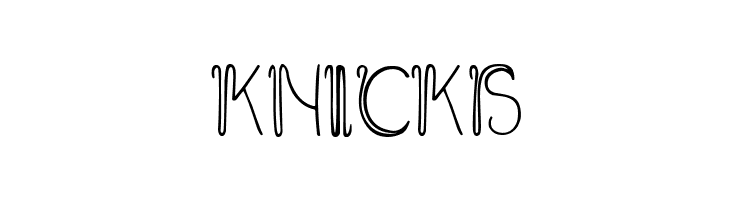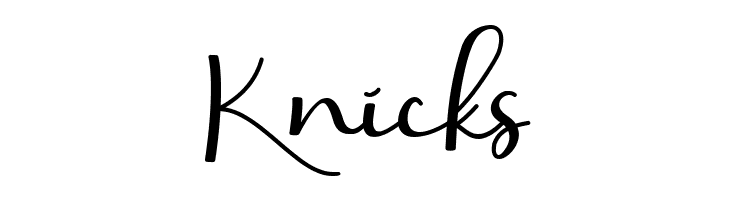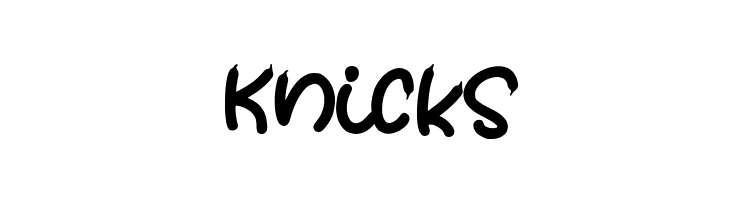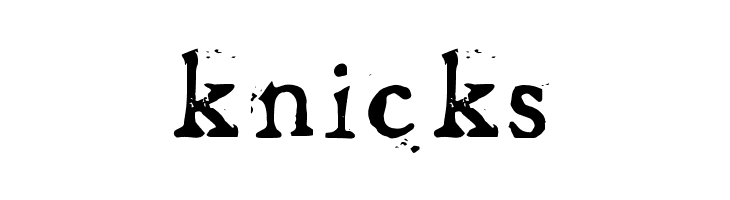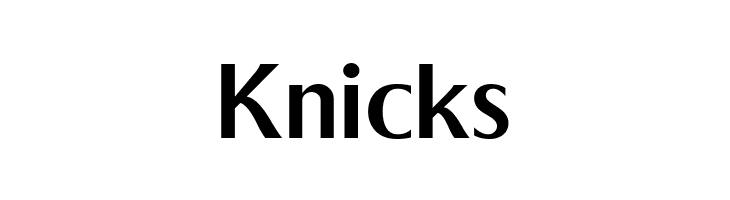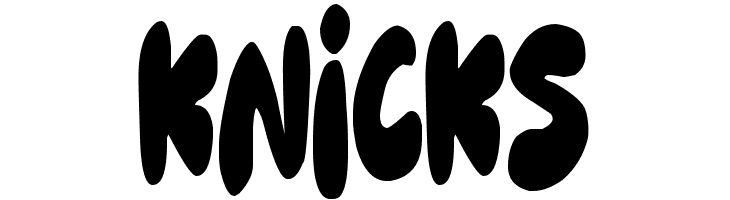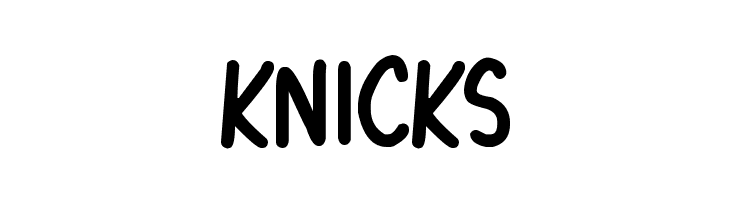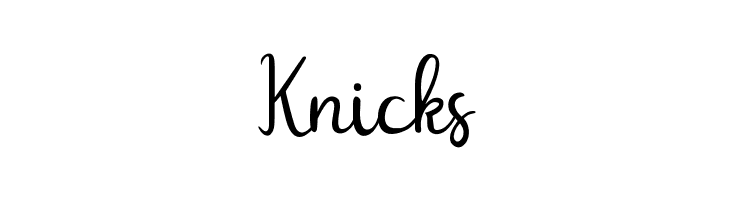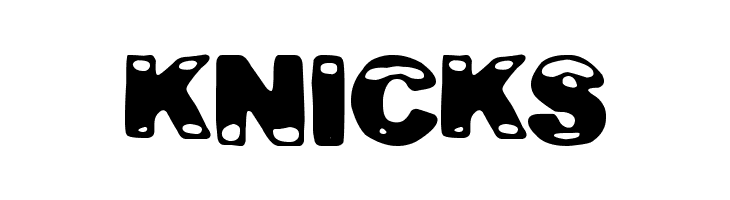
A bold, geometric font with thick strokes and a modern, angular design.
A playful, bold font with cartoonish outlines and a whimsical style.
A playful, hand-drawn font with bold, uneven strokes and a whimsical style.
A distressed, grungy font with a raw, hand-drawn aesthetic.
A bold, modern font with high contrast and unique stroke variations.
A bold, graffiti-inspired stencil font with a rough, hand-drawn texture.
A bold, playful font with exaggerated serifs and a hand-crafted look.
A bold, decorative font with a striped, three-dimensional effect.
A playful, hand-drawn font with rounded edges and a whimsical style.
A bold, geometric font with a futuristic and modern aesthetic.
Geometric, modular border and frame elements.
A bold, graffiti-style font with a distressed, urban look.
A bold, playful handwritten font with rounded, friendly characters.
A bold, dynamic font with sharp, angular strokes and a hand-drawn feel.
A bold, dynamic font with sharp, angular strokes and a rebellious, graffiti-like style.
A decorative font with organic, vine-like embellishments.
A bold, abstract font with unique geometric designs for each letter.
A decorative, geometric font with intricate patterns and bold outlines.
A decorative, geometric font with bold, angular shapes and intricate line patterns.
A decorative, geometric font with intricate line work and bold shapes.
Art Nouveau-inspired ornamental designs with floral and geometric motifs.
A flowing, cursive font with elegant, sweeping strokes and a handwritten appearance.